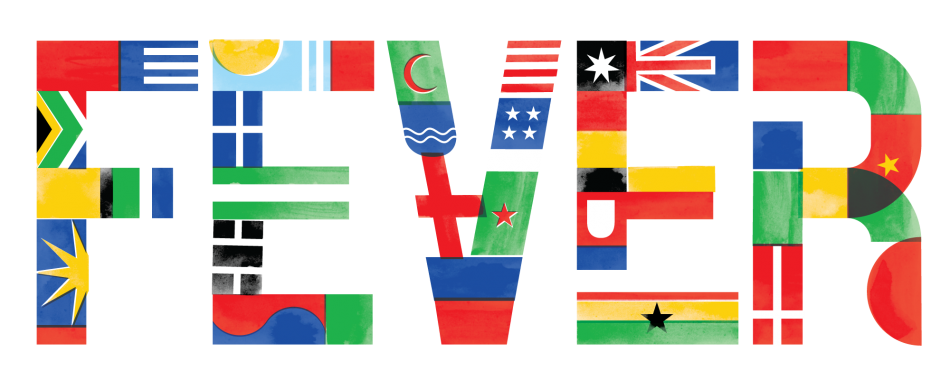
World Cup, Flag Day & Kitching Fever
This is turning out to be quite an entertaining month with the World Cup on and today being Flag day. In order to illustrate the magnitude of these events I was inspired by the work of Alan Kitching. I’m always wary of posting work that is direct inspiration of another artist. We believe at FoT if see work you like it’s beneficial to learn by deconstructing and recreating it in order to know how it works. So, this one is for you Mr. Kitching!